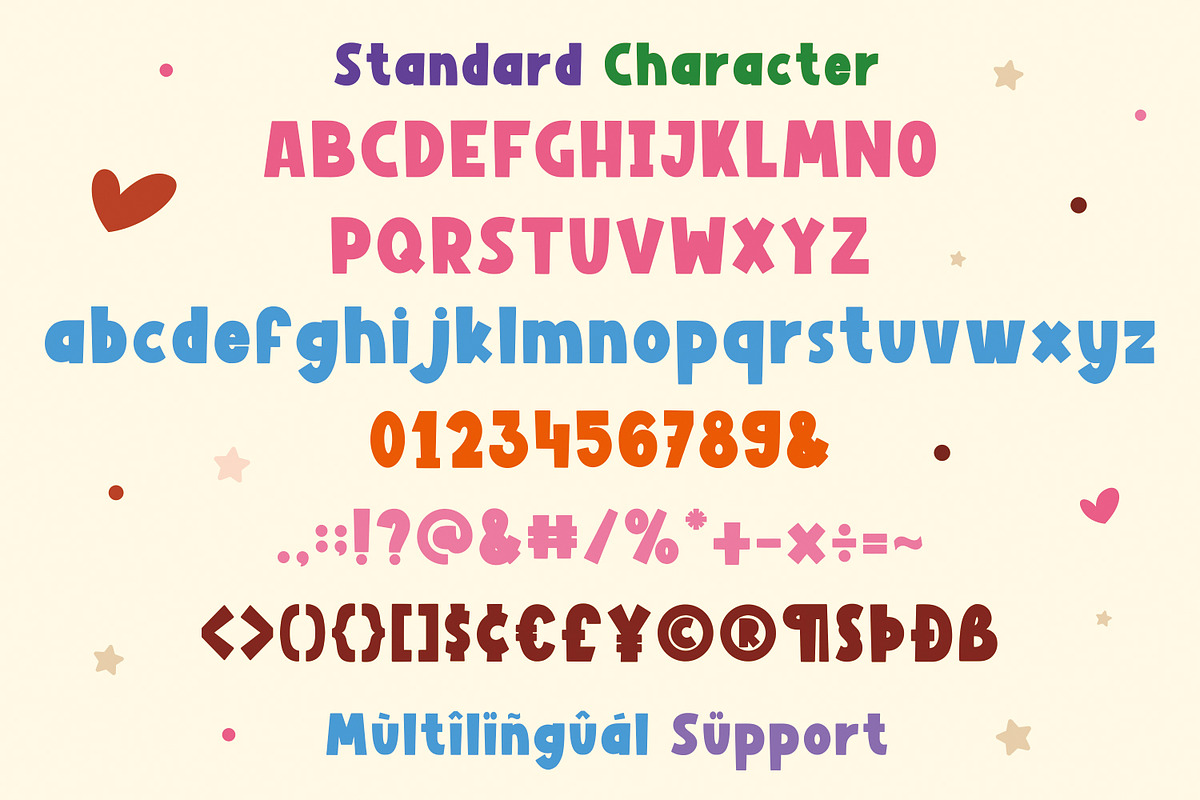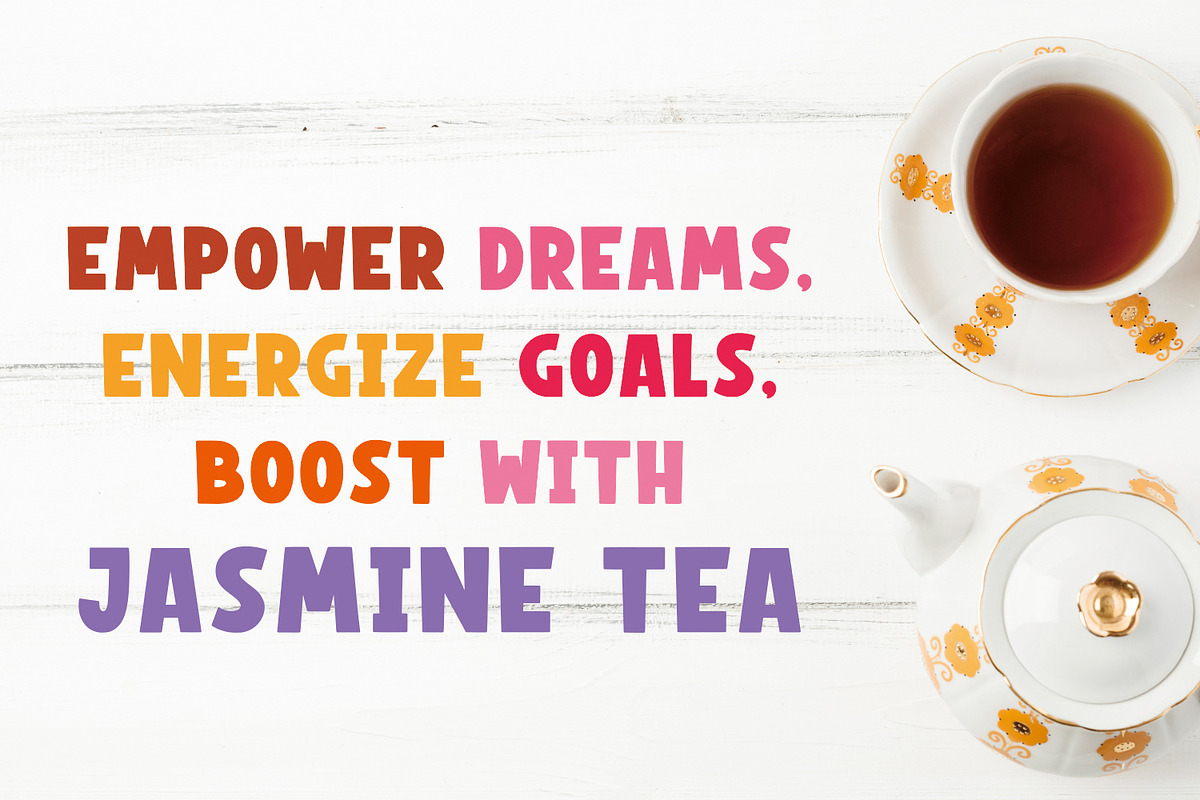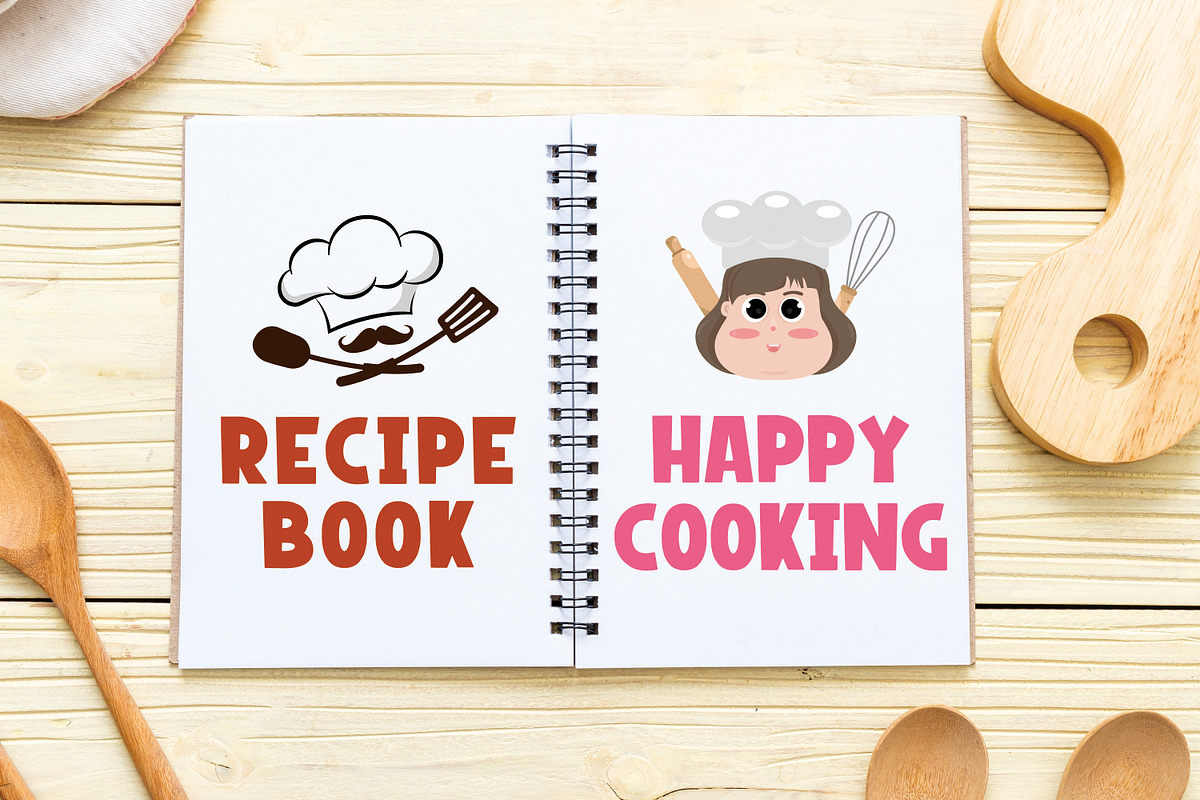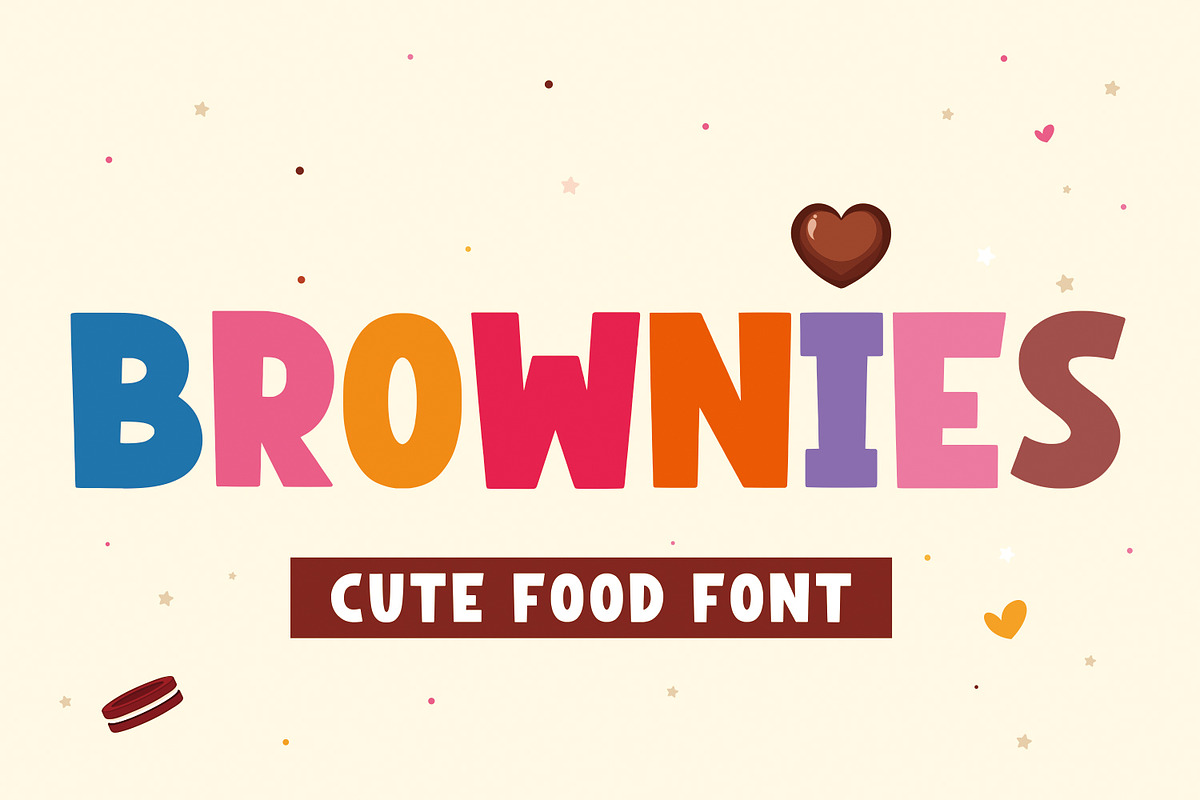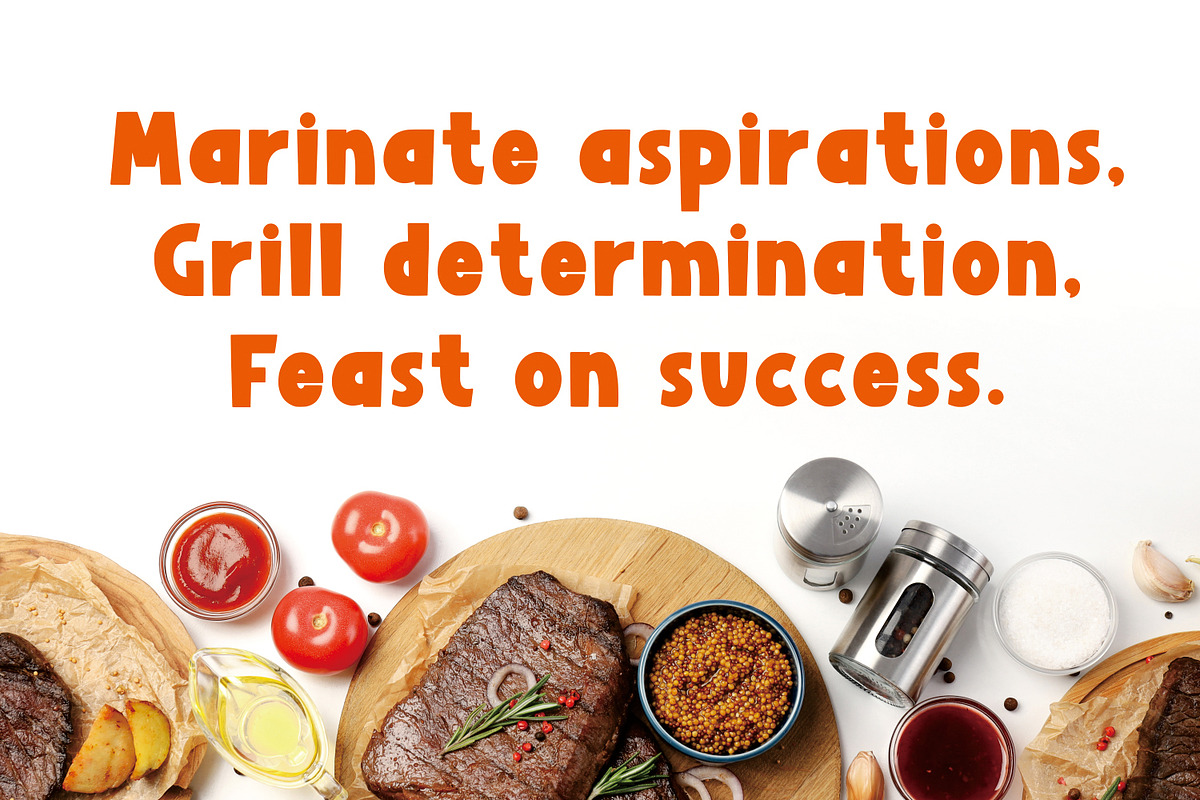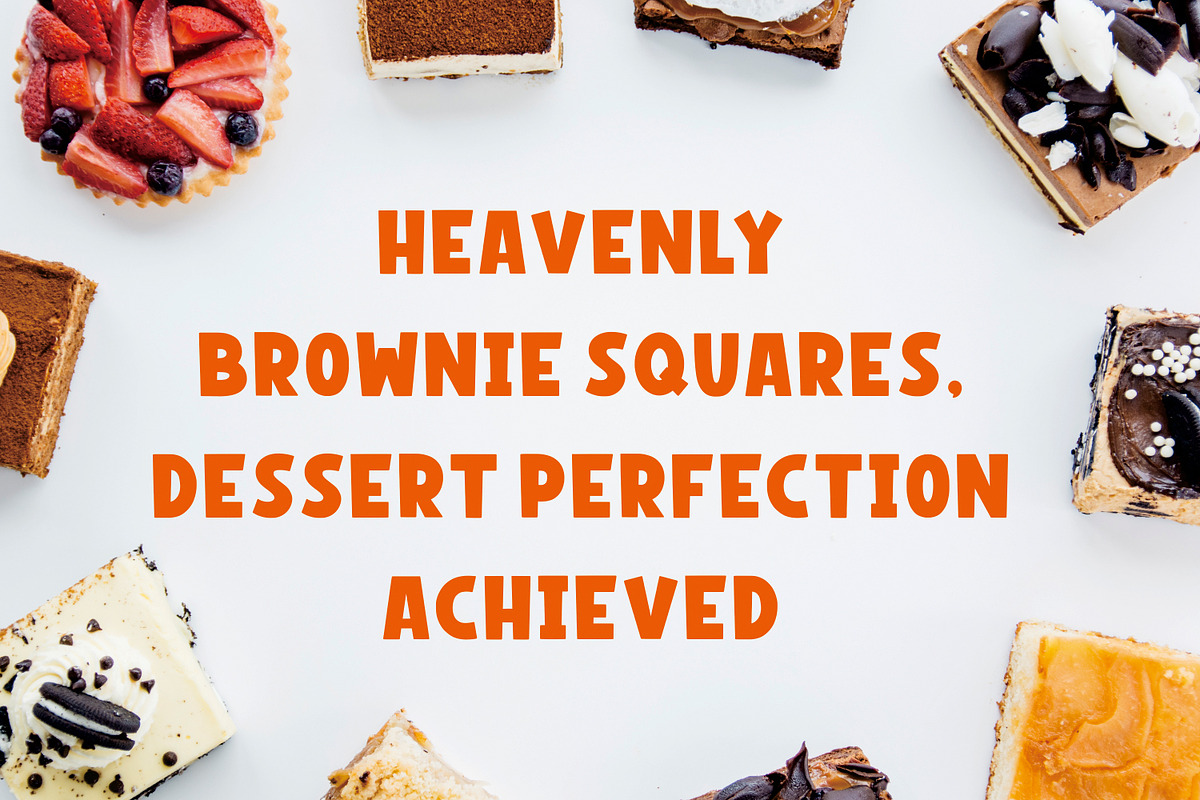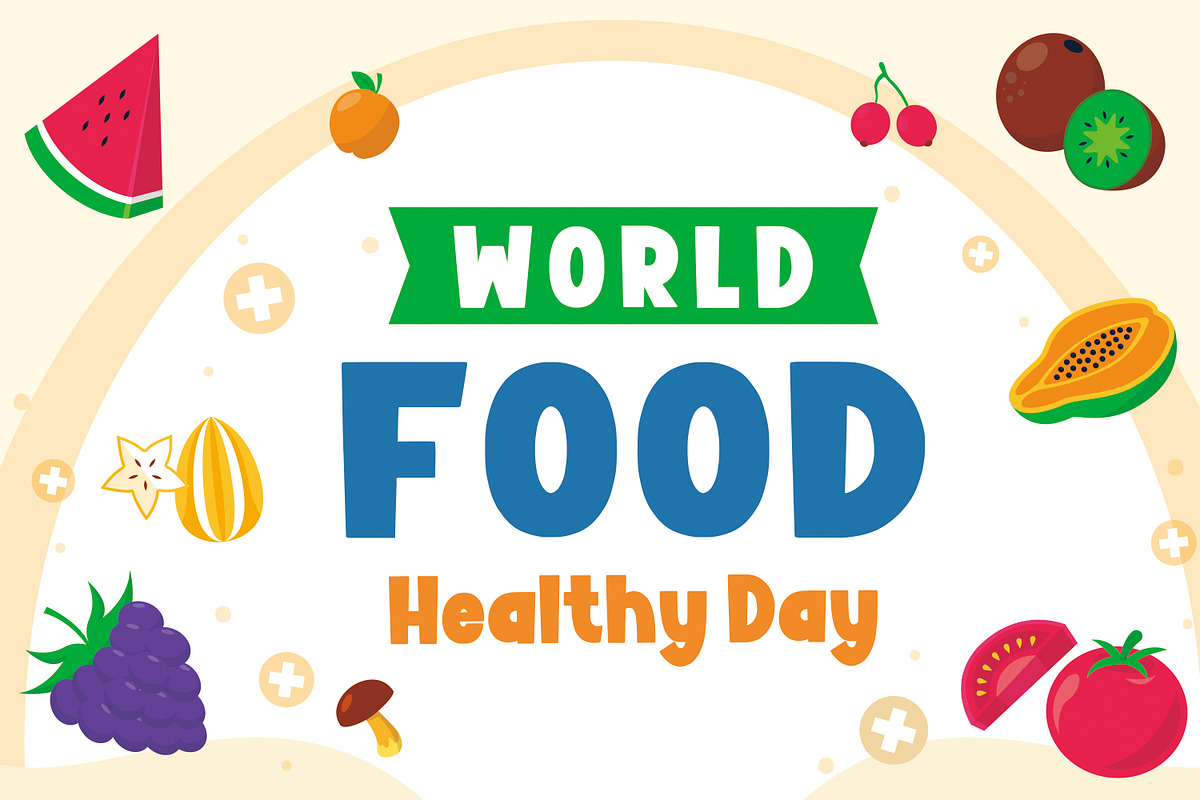
BROWNIES
Introducing "BROWNIES" font – a delectable blend of fun, cuteness, and boldness meticulously crafted to elevate your creative endeavors. This playful display font is the ultimate choice for a wide range of applications, especially in the realm of food logos and packaging, as well as school-related designs tailored for kids' imaginations. Whether you're designing food posters, banners, or crafting intricate pieces with embroidery or a silhouette machine like Cricut, "BROWNIES" font adds a delightful touch that captivates audiences of all ages.
Unleash the whimsical charm of "BROWNIES" font on your branding projects and watch as it transforms ordinary designs into extraordinary works of art. Perfect for logo designs, clothing branding, and packaging, this font injects personality and character into every creation. Picture your magazine headings and advertising materials adorned with the playful allure of "BROWNIES" font, instantly grabbing attention and leaving a lasting impression. From T-shirts to postcards, this font lends a touch of creativity and flair to every project it graces.
- Standard & Multilingual glyphs.